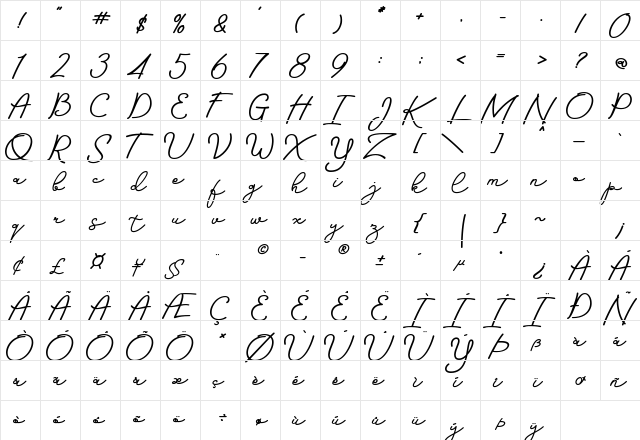
petrichor Regular
| Designer | Dicky Syafaat |
Design Context for petrichor Typeface
petrichor is a composed and adaptable typeface that performs quietly and consistently across a wide range of design contexts.